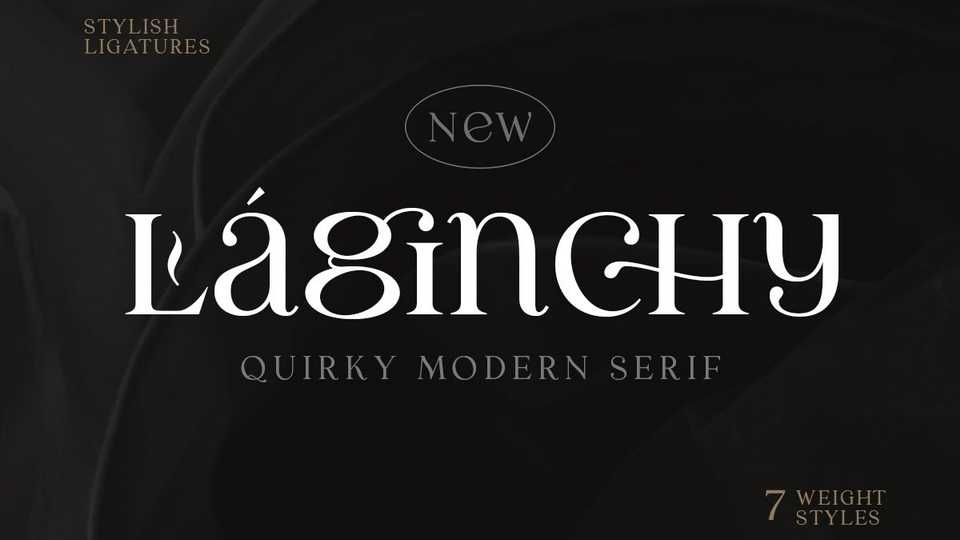
Download Laginchy font, a genuine, bold and classy serif typeface. With its incredibly versatile style Laginchy is perfect to create gorgeous wedding invitations, beautiful stationary art, eye-catching social media posts and more.